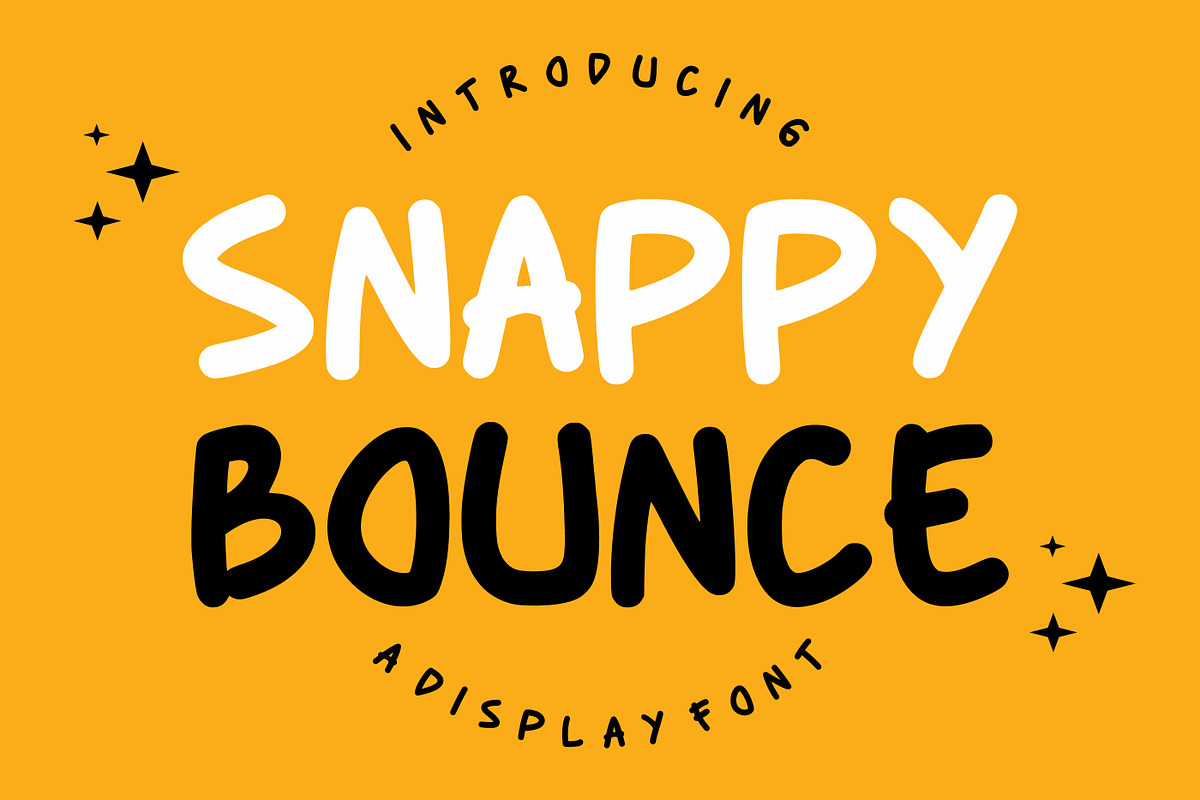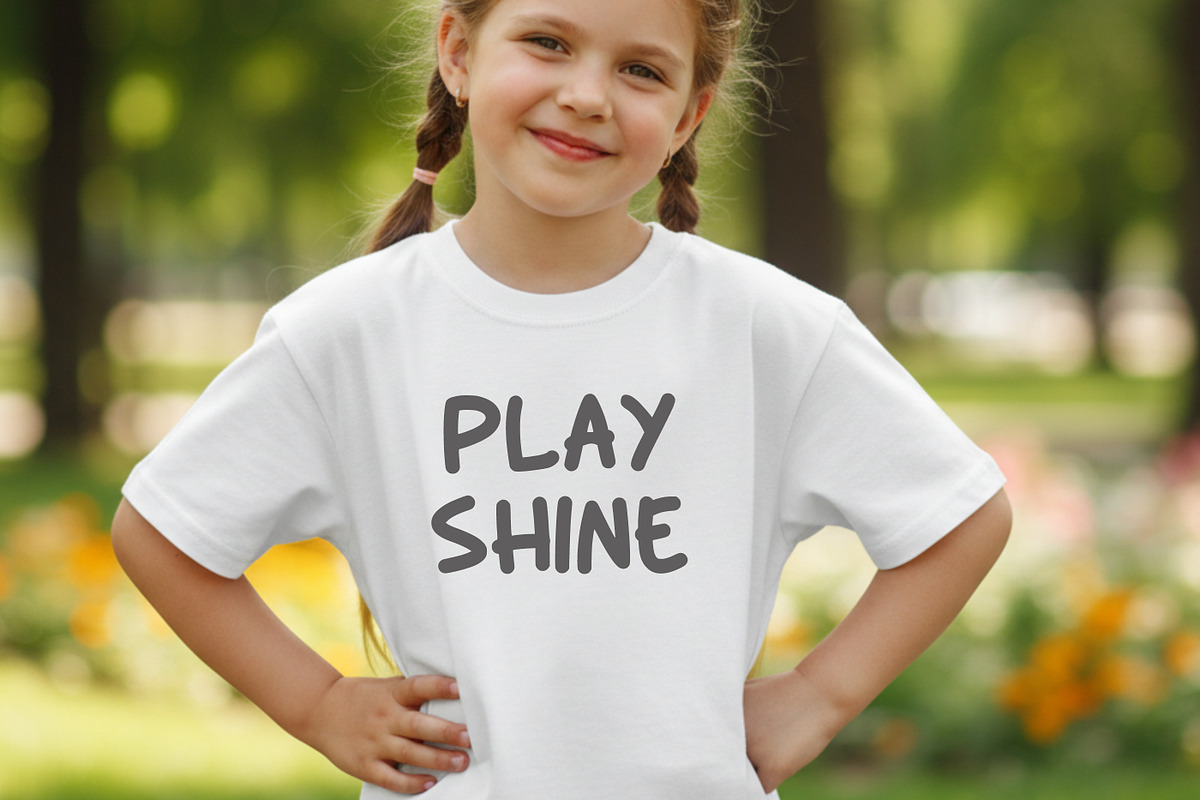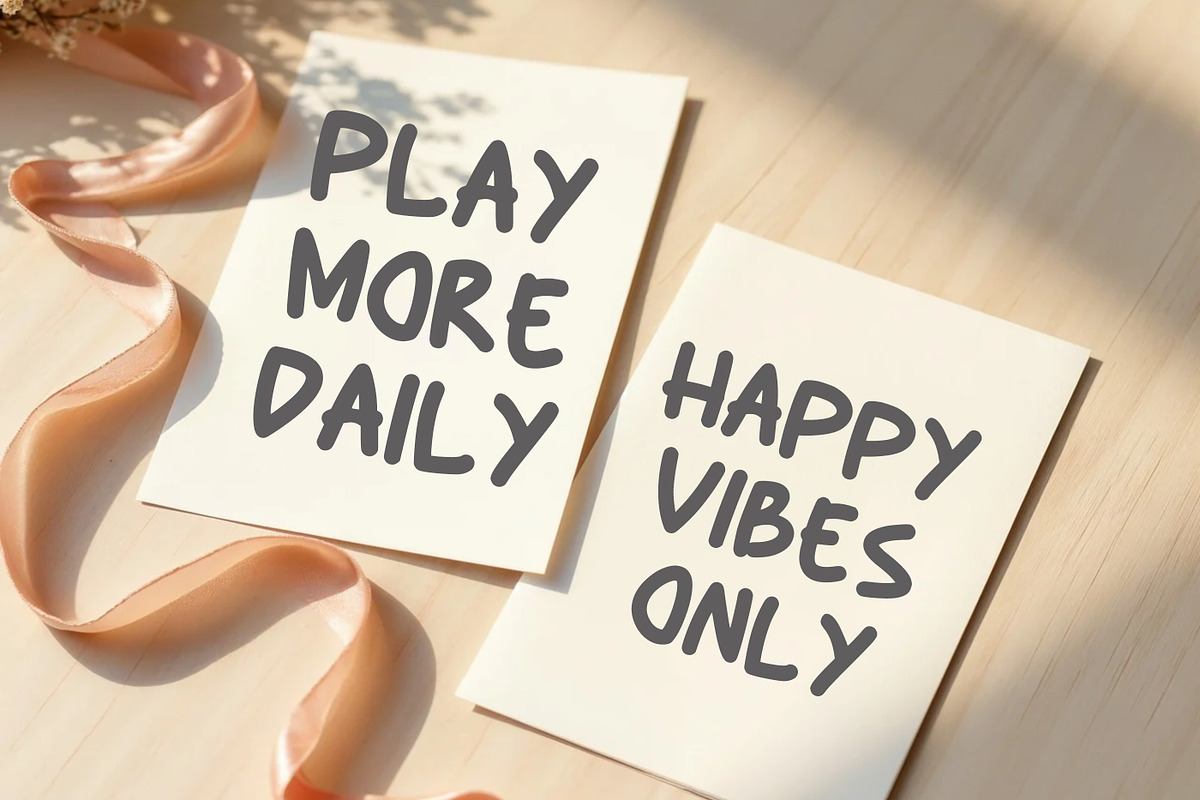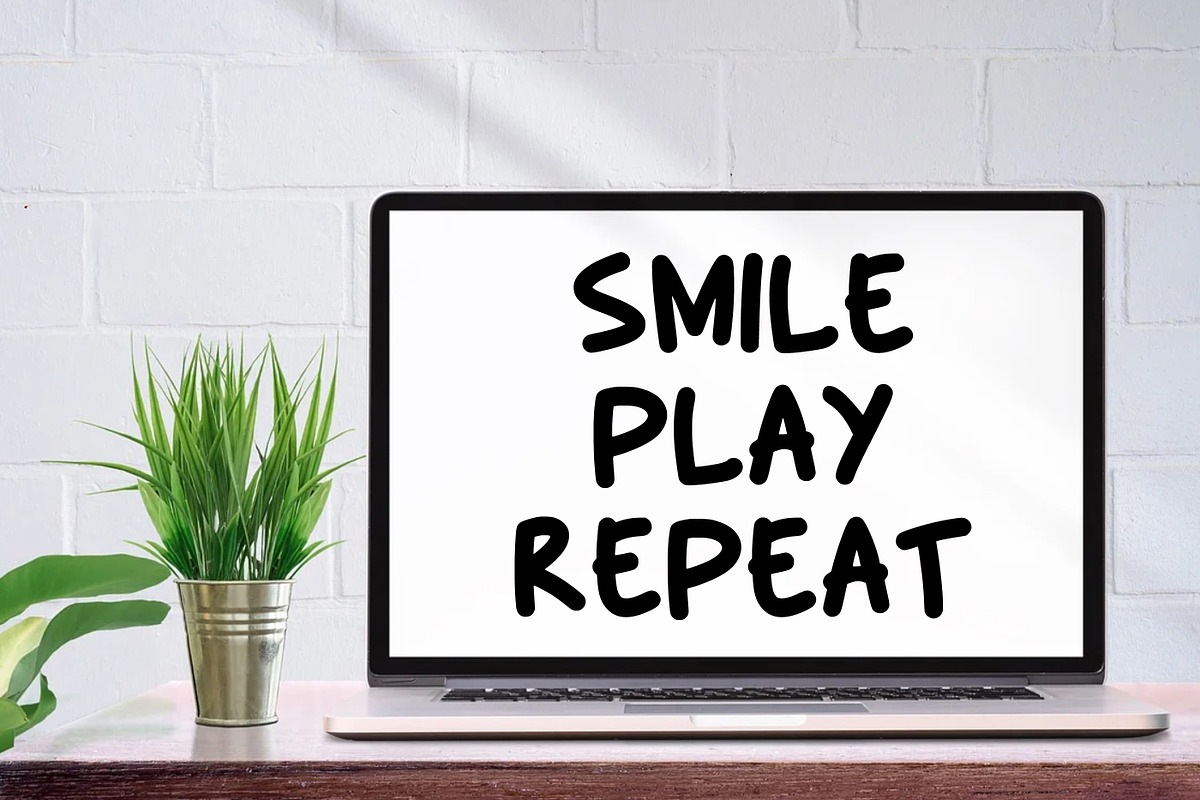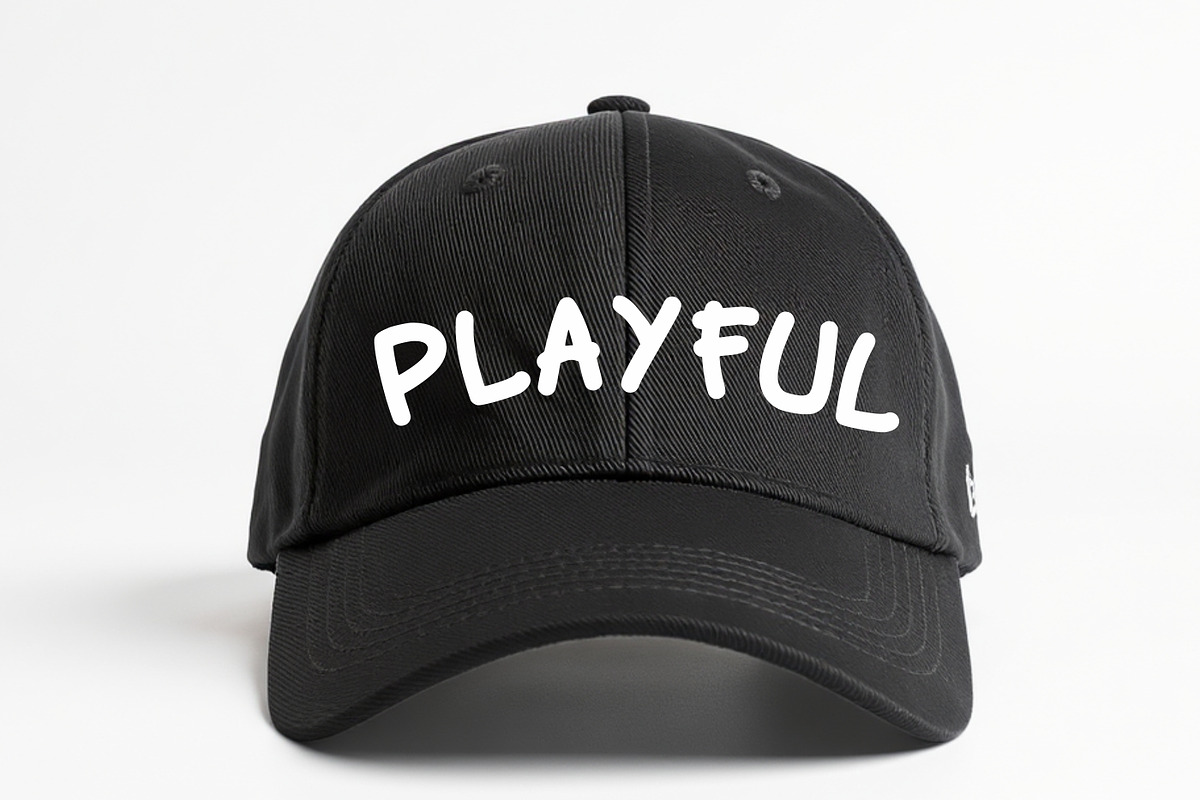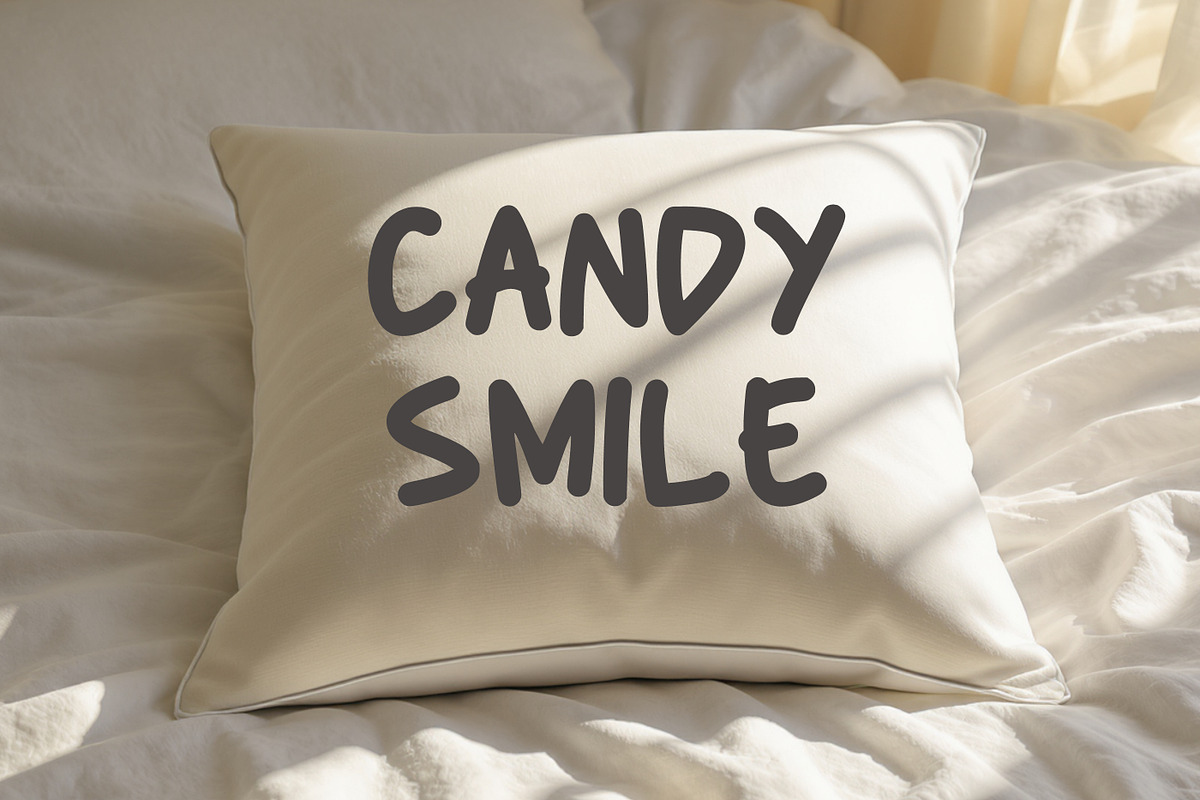
Snappy Bounce
Snappy Bounce is a playful display font that brings joy and energy into your designs. Featuring soft curves, bold strokes, and a lively handwritten feel, this font is perfect for projects that need a friendly and approachable touch.
Whether you’re creating kids’ products, party invitations, logos, or eye-catching headlines, Snappy Bounce adds a fun and modern vibe. Its casual yet bold personality makes it versatile for both digital and print designs.
Add a splash of happiness to your creative work with Snappy Bounce!